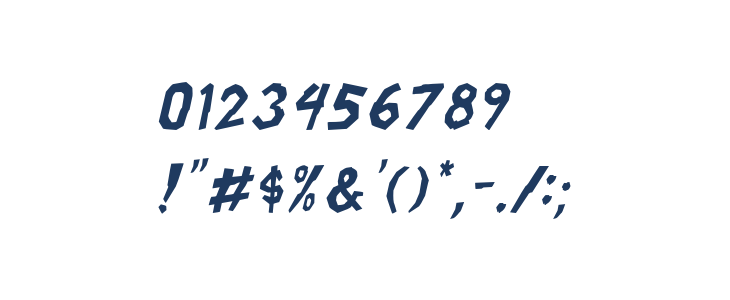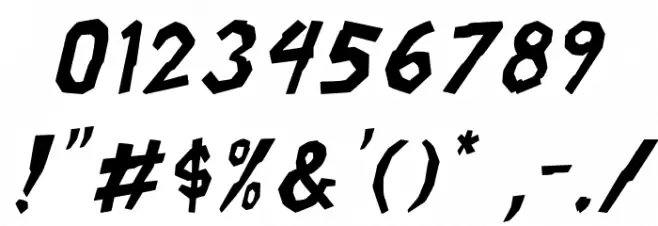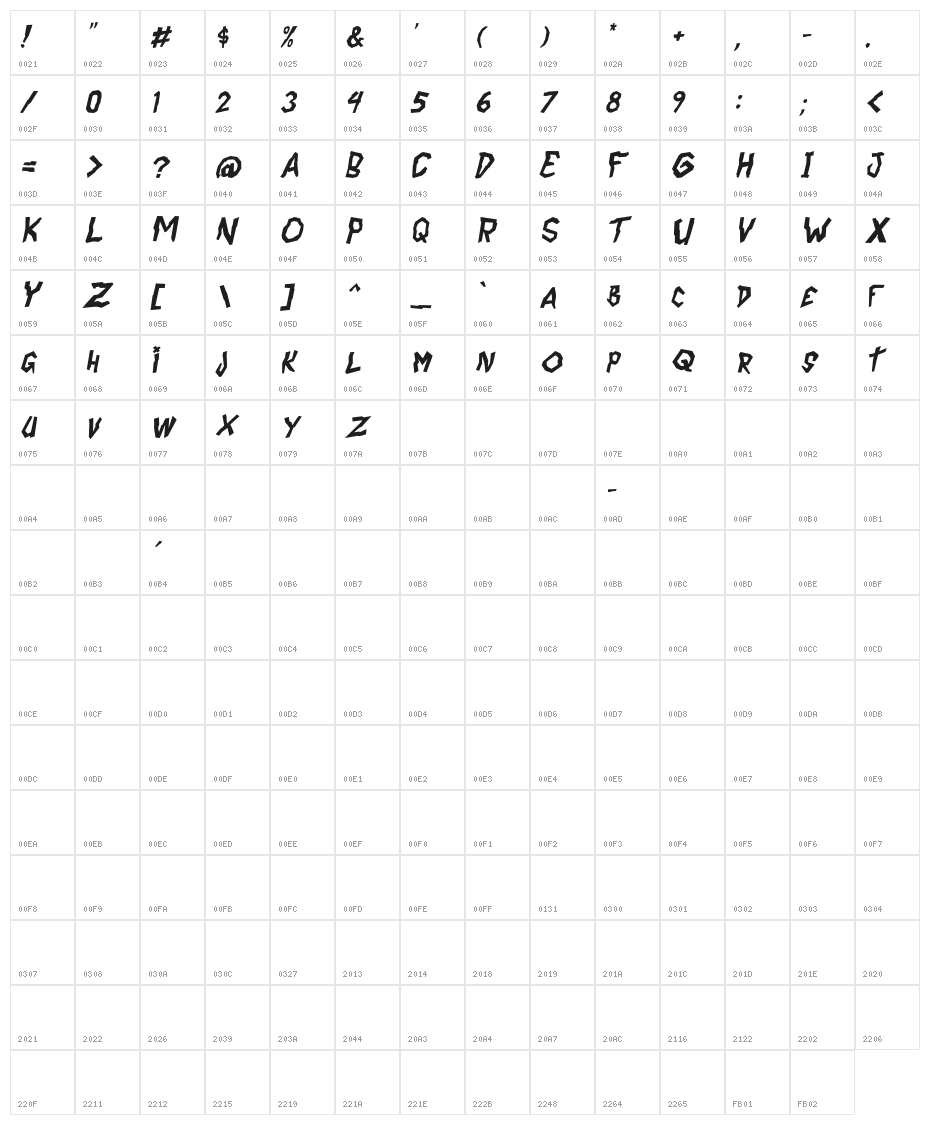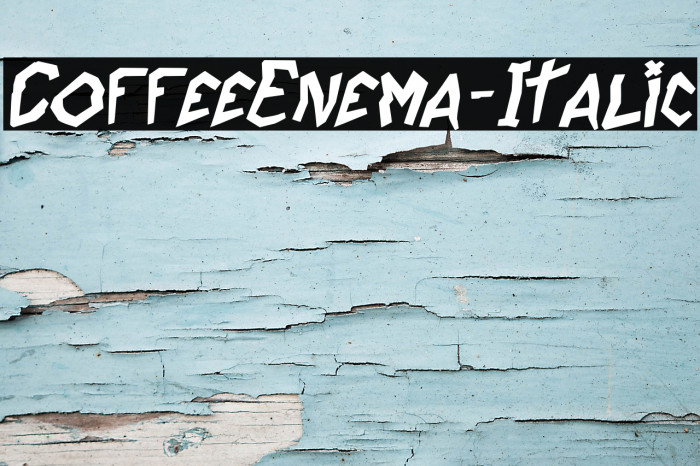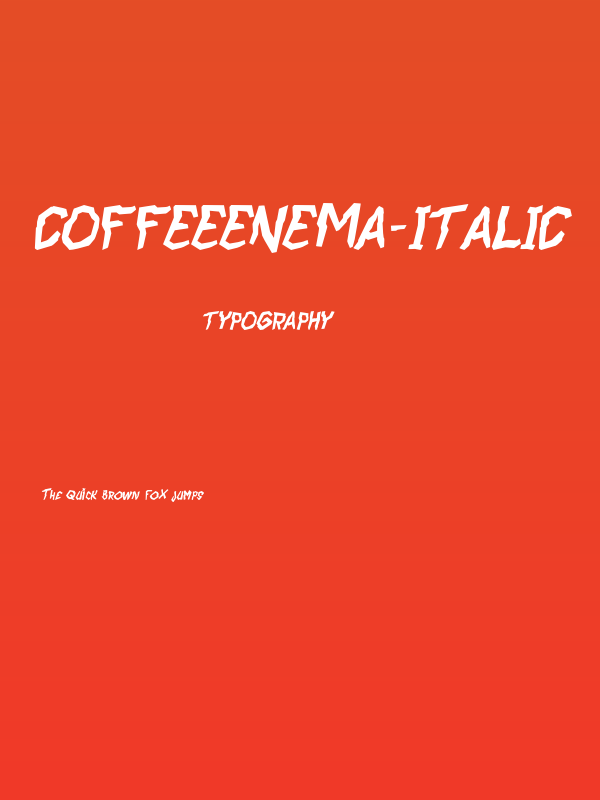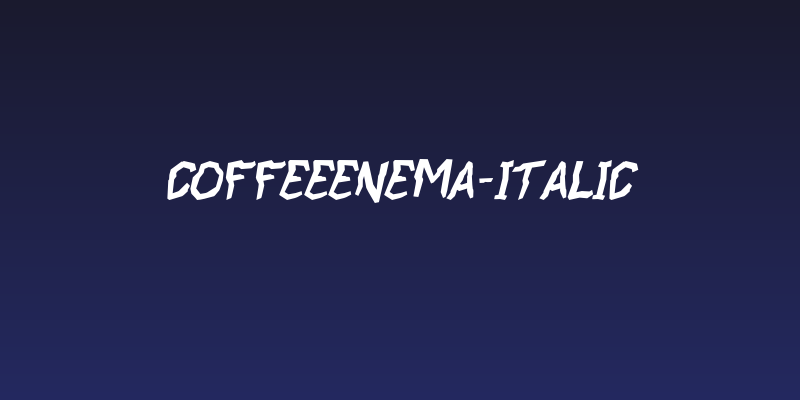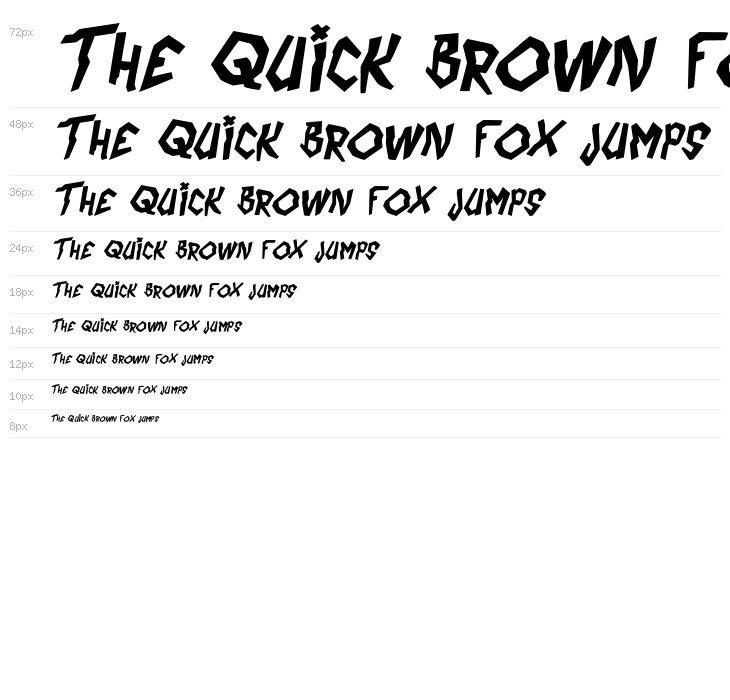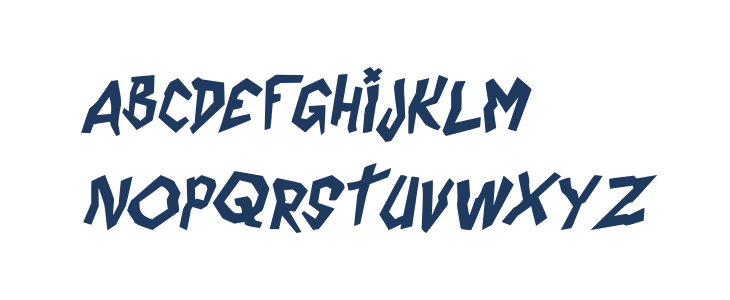
CoffeeEnema-Italic Font
CoffeeEnema-Italic Description
This font features a bold and dynamic style with sharp, angular edges and a slightly slanted orientation, giving it an energetic and edgy appearance. The characters are designed with a consistent thickness, creating a uniform look across both uppercase and lowercase letters. The numbers and special characters maintain this boldness, ensuring a cohesive aesthetic throughout. Its unique style makes it stand out, suitable for projects that require a strong visual impact.
Bold, angular, and slightly slanted font with a dynamic style from Cartoon fonts.
- Proposed Projects: Ideal for posters, album covers, video game graphics, and branding that requires a bold and edgy look.